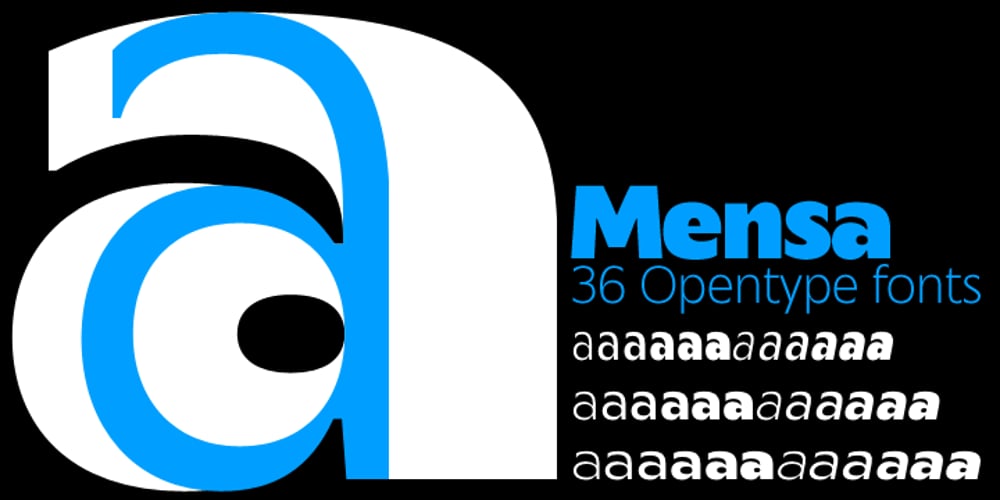
Mensa Font Family was designed by Nicholas Garner and published by AVP. Mensa contains 36 styles and family package options. A large x-height, open forms and colorful weight variations make Mensa an extremely legible body face particularly where space is at a premium. The three widths and six weights together with italics provide plenty of options for setting magazines, books and web pages.